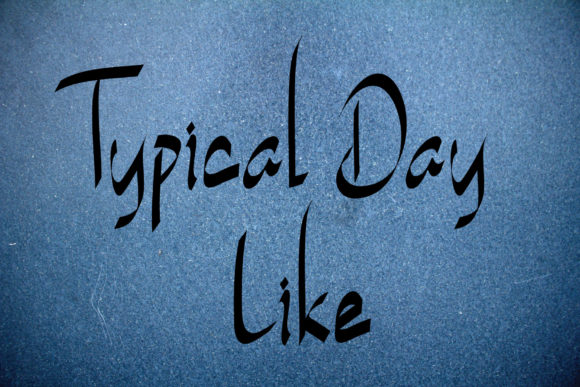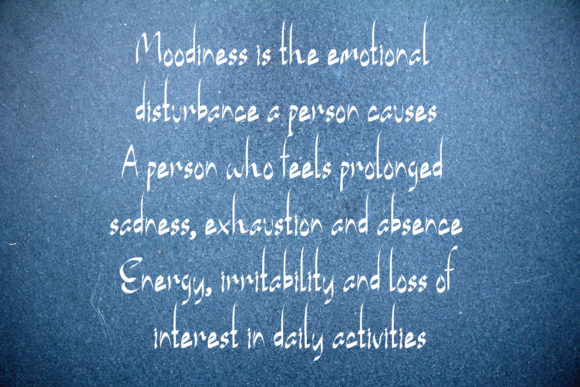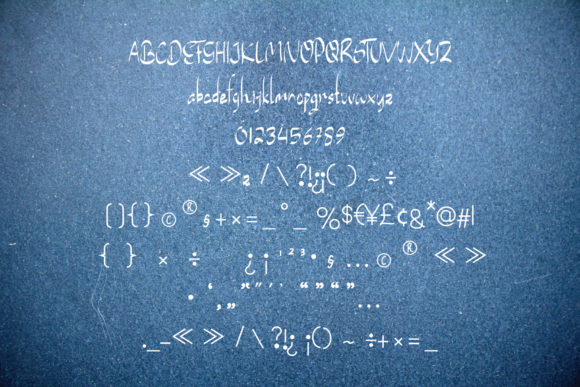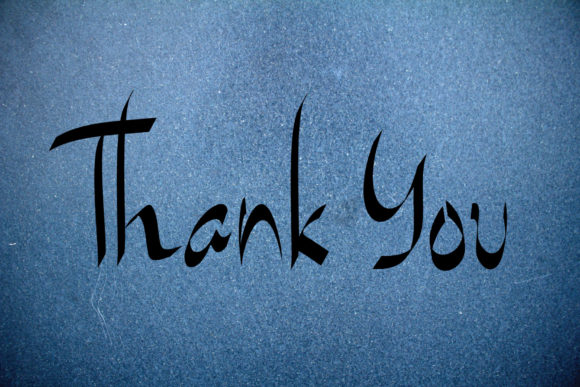
Introducing Based Font: The Cute and Quirky Display Font to Elevate Your Designs
Are you tired of using the same old fonts in your designs? Do you want to add a touch of personality and whimsy to your creative projects? Look no further than Based Font, a delightful and quirky display font that’s sure to bring a smile to your face. In this article, we’ll dive into the world of Based Font, exploring its features, benefits, and uses, and show you how it can take your designs to the next level.
What is Based Font?
Based Font is a unique and charming display font that’s perfect for adding a playful touch to your designs. With its cute and quirky style, it’s ideal for use in a variety of creative projects, from posters and flyers to social media graphics and branding materials. This beautiful display font is sure to capture attention and leave a lasting impression on your audience.
The Features of Based Font
So, what makes Based Font so special? Here are just a few of its standout features:
- Unique and quirky style: Based Font has a one-of-a-kind design that’s sure to set your designs apart from the crowd.
- Cute and playful vibe: This font is perfect for adding a touch of whimsy and fun to your designs.
- Display font: Based Font is optimized for use as a display font, making it perfect for headlines, titles, and other attention-grabbing elements.
- Easy to read: Despite its quirky style, Based Font is surprisingly easy to read, making it perfect for use in a variety of contexts.
The Benefits of Using Based Font
So, why should you choose Based Font for your designs? Here are just a few of the benefits of using this beautiful display font:
- Adds a touch of personality: Based Font allows you to add a touch of personality and whimsy to your designs, setting them apart from the crowd.
- Increases engagement: The unique and playful style of Based Font is sure to capture attention and increase engagement with your audience.
- Versatile: Based Font can be used in a variety of creative projects, from posters and flyers to social media graphics and branding materials.
How to Use Based Font in Your Designs
Now that we’ve explored the features and benefits of Based Font, let’s talk about how to use it in your designs. Here are a few ideas to get you started:
- Posters and flyers: Use Based Font as a headline or title font to add a touch of personality and whimsy to your posters and flyers.
- Social media graphics: Add Based Font to your social media graphics to make them stand out in a crowded feed.
- Branding materials: Use Based Font in your branding materials, such as business cards and brochures, to add a touch of personality and whimsy to your brand.
- Digital products: Use Based Font in your digital products, such as ebooks and courses, to add a touch of fun and personality to your content.
In conclusion, Based Font is a unique and charming display font that’s perfect for adding a playful touch to your designs. With its cute and quirky style, it’s ideal for use in a variety of creative projects, from posters and flyers to social media graphics and branding materials. Whether you’re a designer, craft, or simply someone who loves to create, Based Font is sure to bring a smile to your face and elevate your designs to the next level. So why wait? Add Based Font to your creative toolkit today and start creating designs that are truly one-of-a-kind!